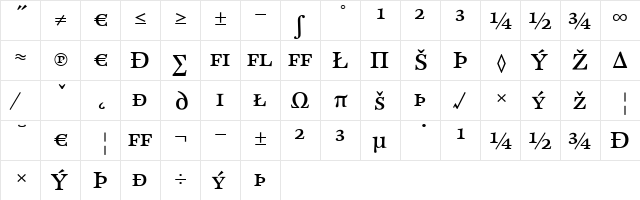
CliffordSix Regular
| Foundry | Akira Kobayashi, . Published by FontShop International. FontFont Release |
Design Context for CliffordSix Typeface
CliffordSix takes a measured approach to typography — its balanced proportions and neutral character make it a reliable workhorse for both digital and print work.